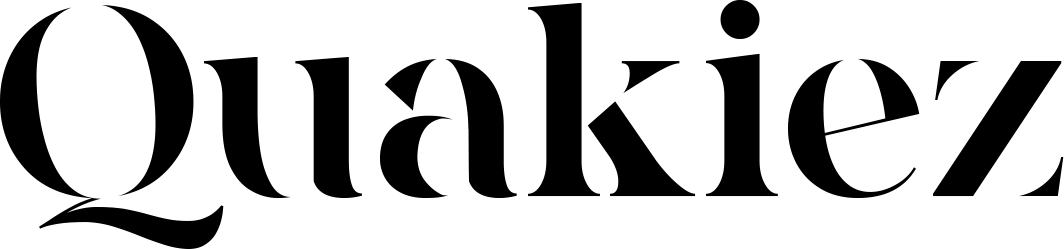
Quakiez Font
If you want your serif font to be dipped in luxury and especially suitable for fashion branding projects, you’re in luck. Quakiez has a highly classy letterform with strokes that narrow down and fade out.
Font By Almarkhatype Studio